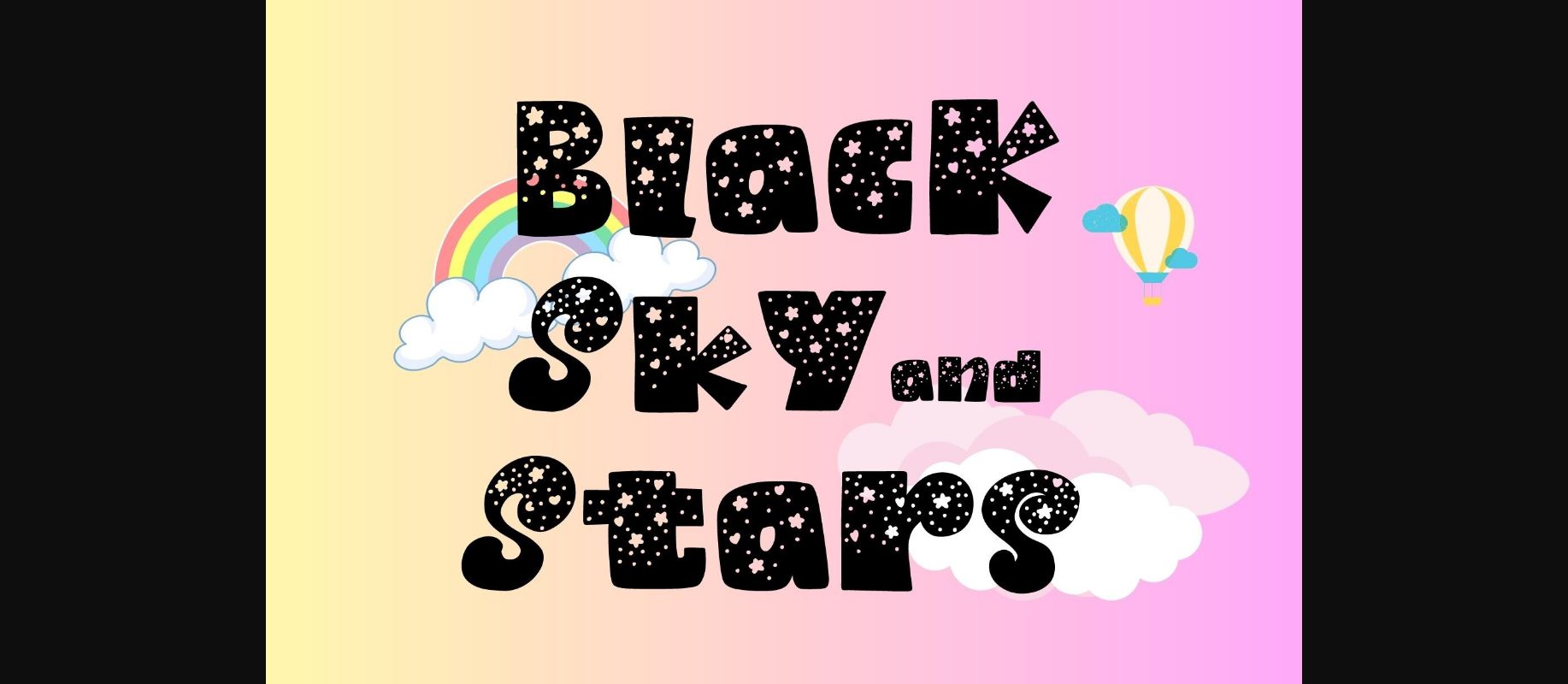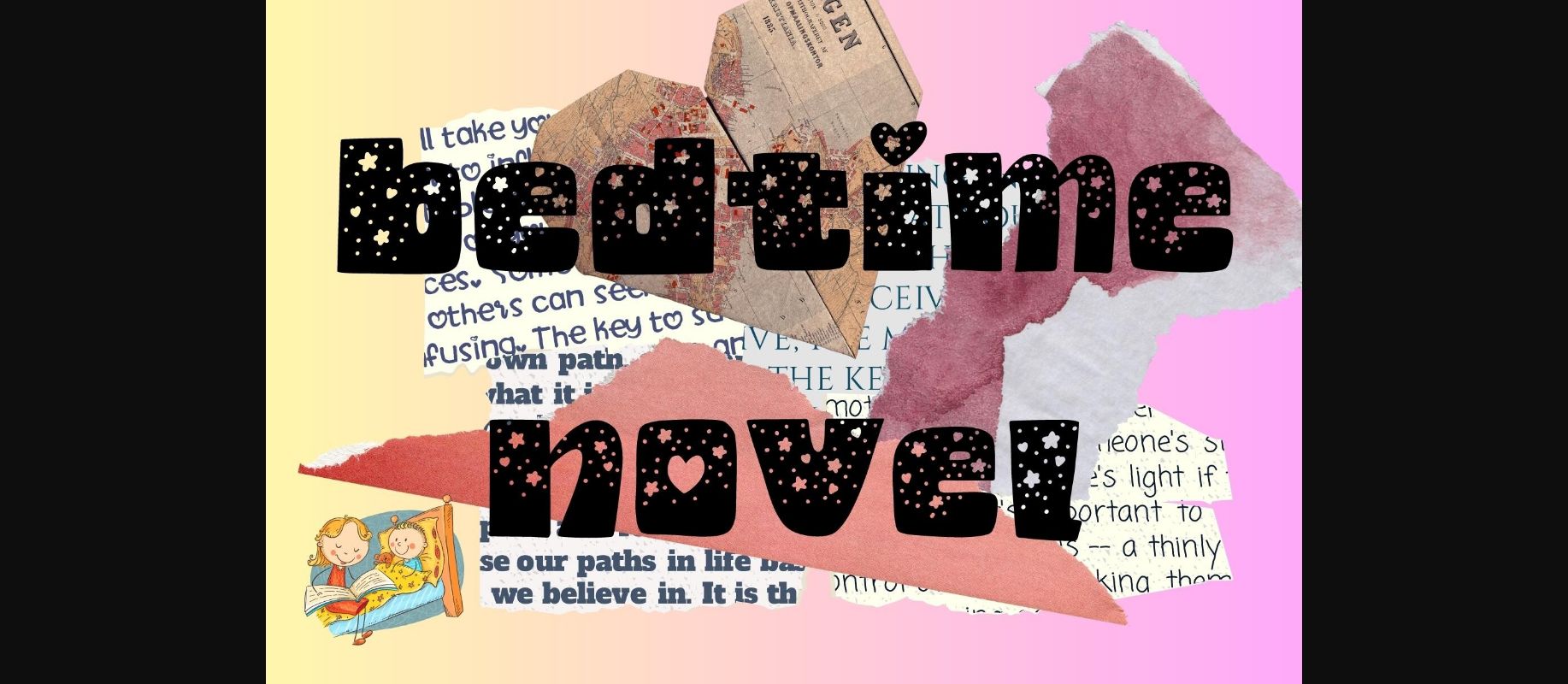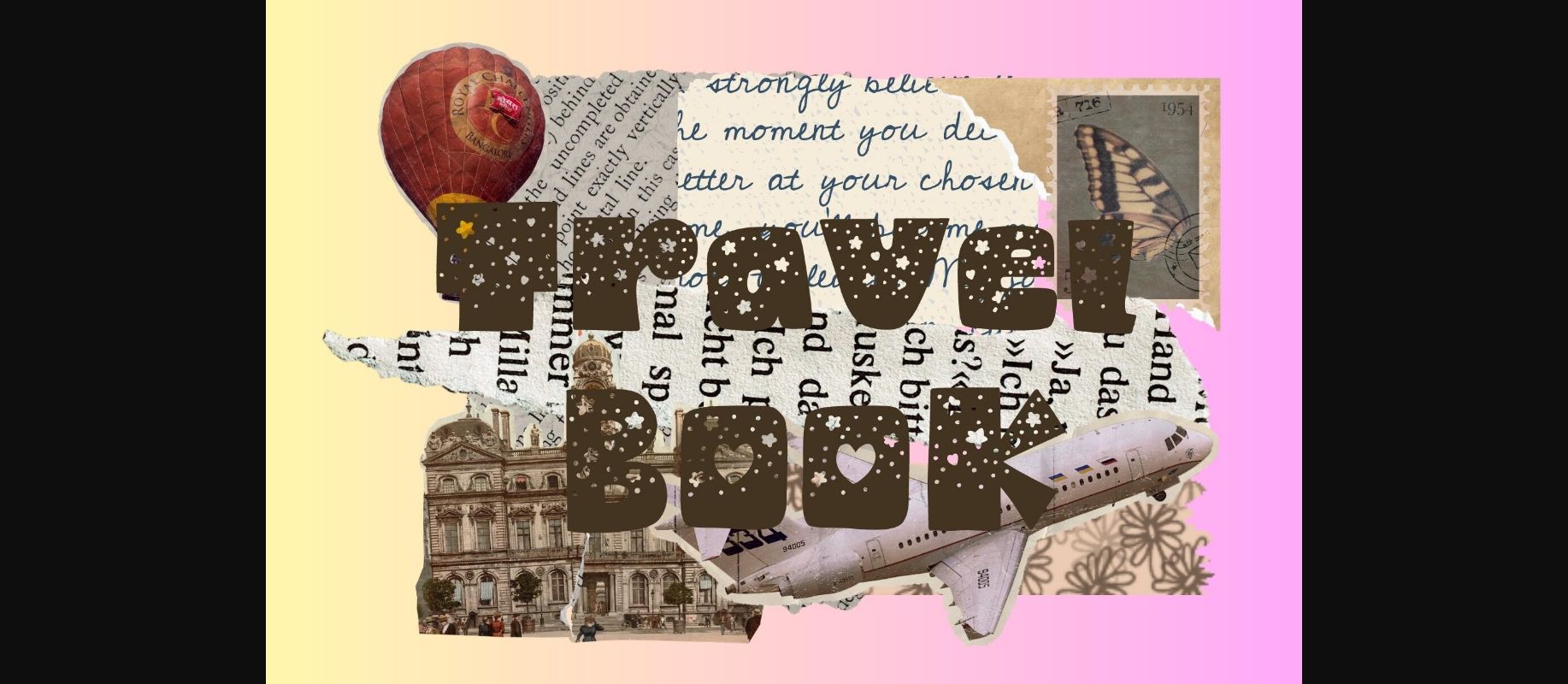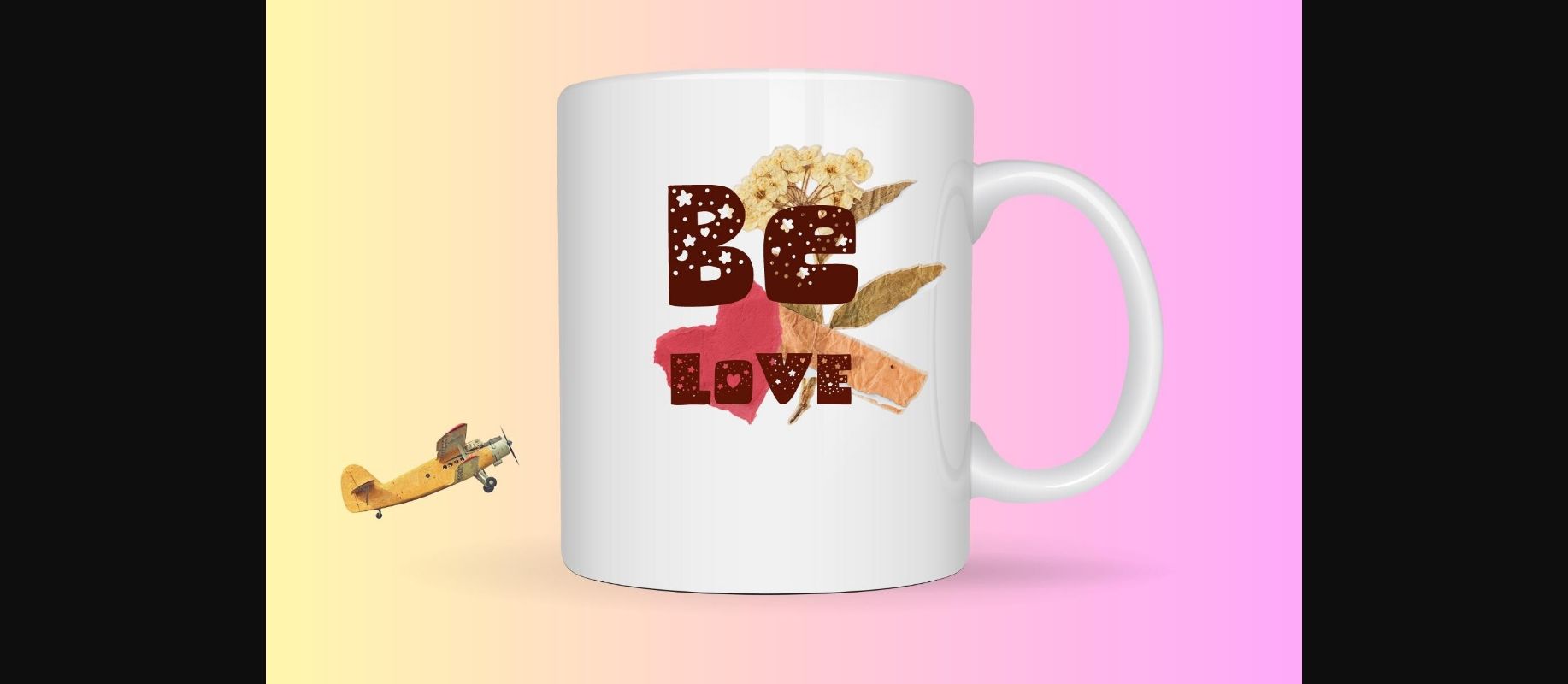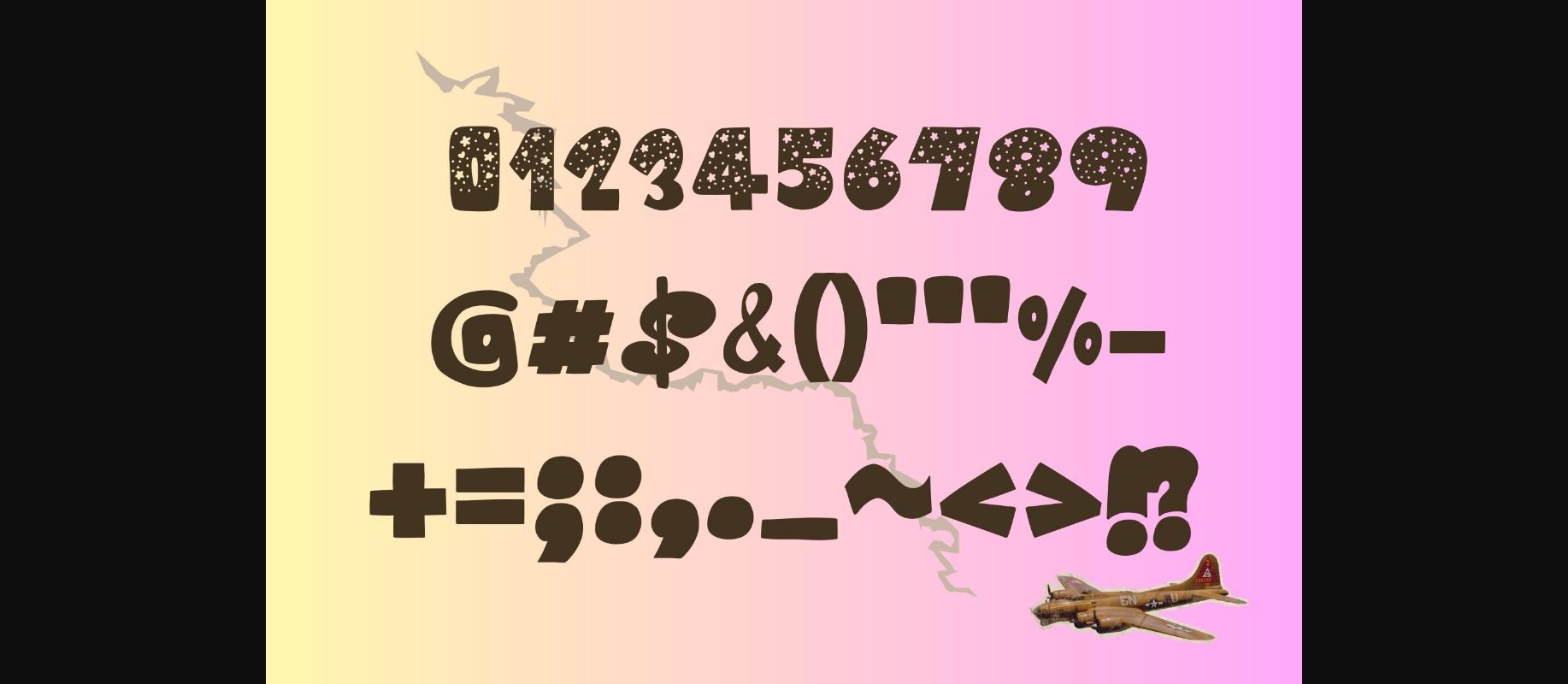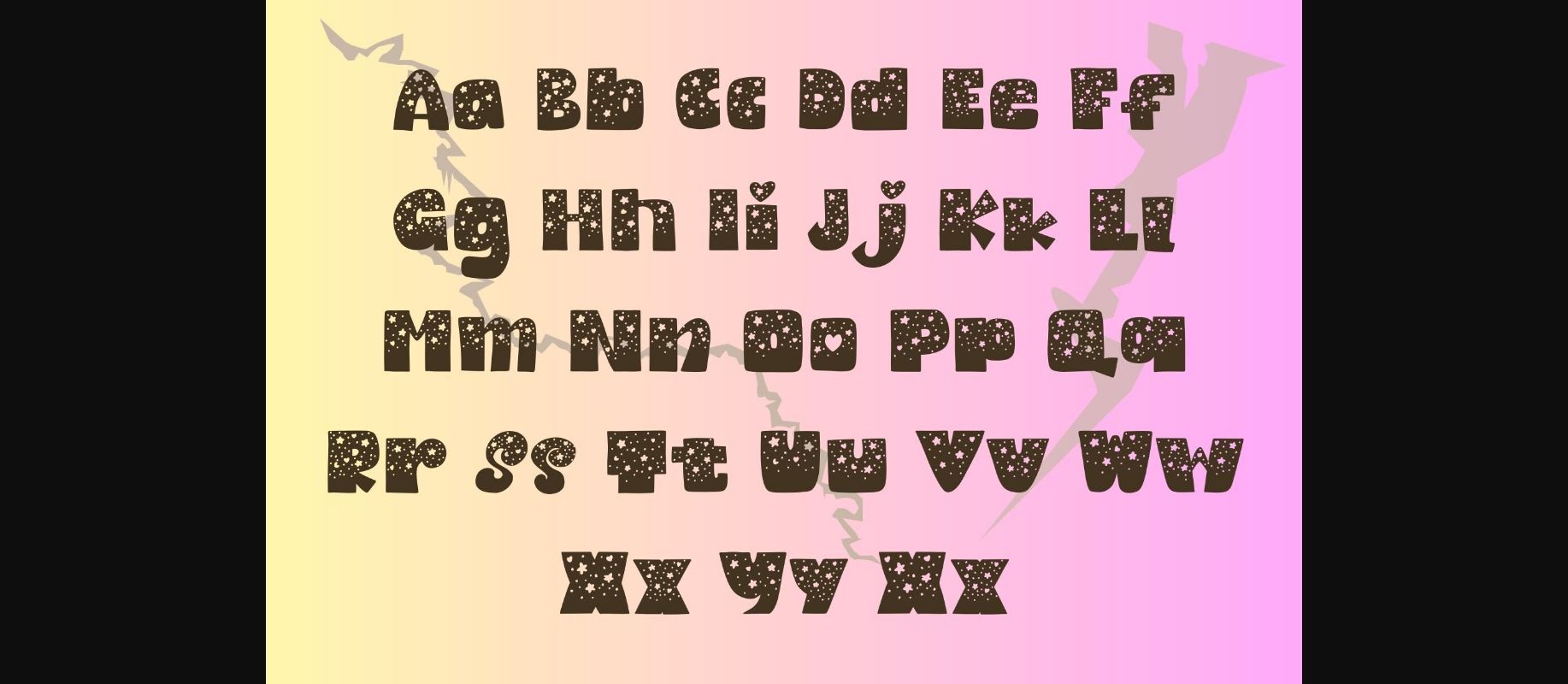
Black Sky and Stars Font
About Black Sky and Stars Font
Black Sky and Stars is a handwritten font: logos, branding, wedding invitations, business cards, greeting cards, posters, magazines, social media, planner prints, and websites. It is especially useful for children’s designs, t-shirts, mugs, posters, and more. Add this font to your favorite creative ideas and notice how it makes them come alive.